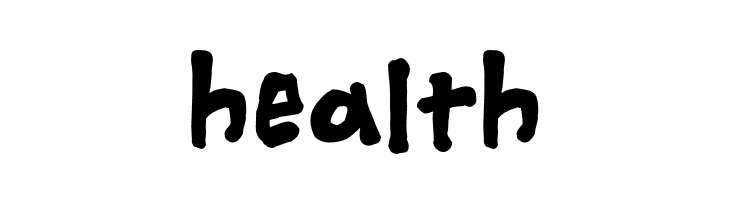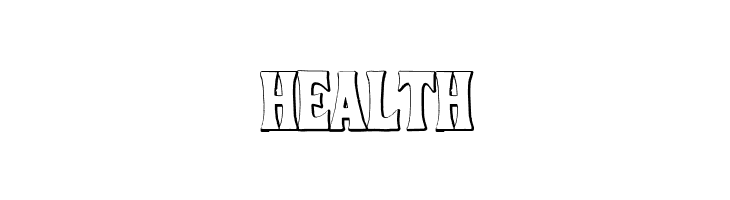
A playful, hand-drawn font with rounded, smooth letters and a whimsical style.
A playful, hand-drawn serif font with a whimsical and informal style.
A playful, handwritten font with smooth, rounded strokes and a casual charm.
A playful, handwritten font with irregular, whimsical strokes.
A decorative and ornate font with vintage flair, ideal for artistic projects.
A refined and elegant font with thin, elongated strokes and slight contrast.
A bold, italic serif font with dynamic and elegant characteristics.
A bold, condensed font with a modern and impactful style.
A bold, condensed, and italic font with high contrast, ideal for impactful designs.
A sleek, minimalist font with thin, elongated characters and a modern aesthetic.
A clean, modern sans-serif font with uniform stroke width and rounded characters.
A modern, italic font with clean lines and a professional appearance.
A sleek, extra-light italic font with a modern and sophisticated style.
An abstract, fragmented font with bold, irregular shapes.
A playful, candy-themed decorative font with bold, rounded letters.
A playful font with letters inside candy kiss shapes, perfect for fun projects.
A decorative font with a candy cane striped pattern, perfect for festive designs.
A playful, candy cane-inspired decorative font with bold, striped letters.
A decorative font with intricate Christmas-themed candle illustrations.
A playful, candy-themed decorative font with bold, blocky letters and shadow effects.
A playful, hand-drawn font with bold, rounded characters and a whimsical style.
An elegant, whimsical script font with flowing, interconnected strokes.
An elegant, whimsical script font with flowing, interconnected letters and intricate flourishes.
A lively, handwritten font with flowing cursive elements and artistic flair.
A lively, expressive handwritten font with dynamic, flowing strokes.
A lively, elegant script font with a handwritten feel.
A modern, striped font with tall, narrow characters and a unique diagonal pattern.
A bold, decorative font with a unique striped pattern.